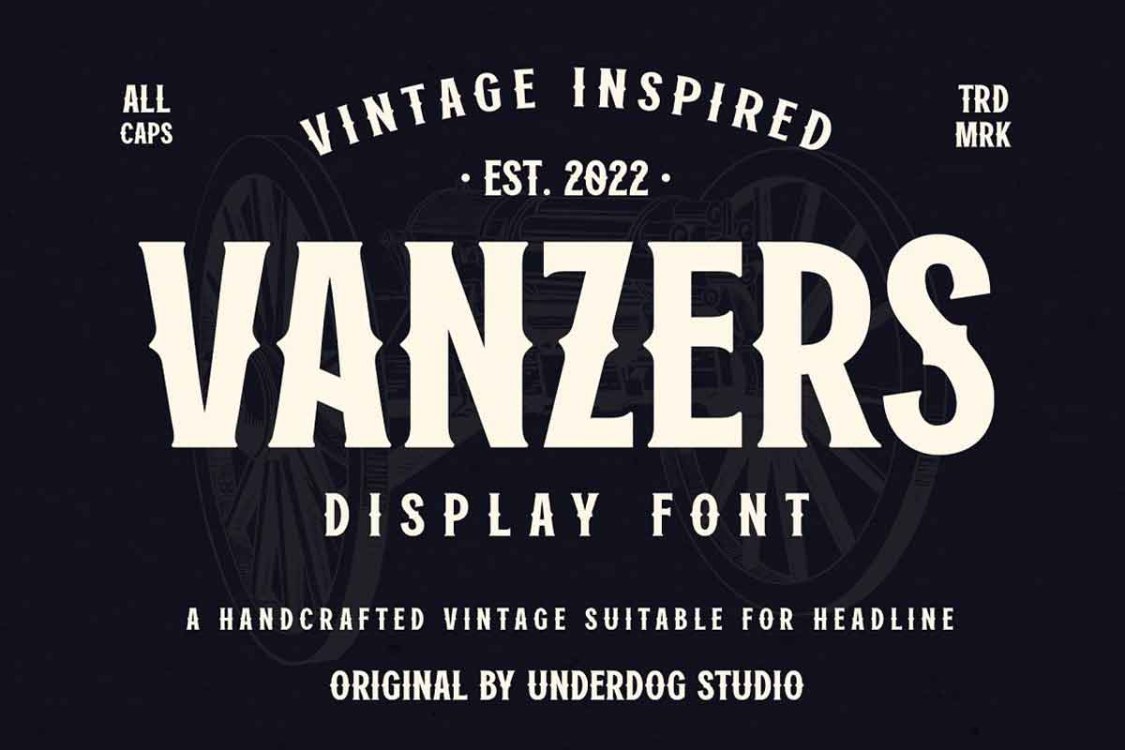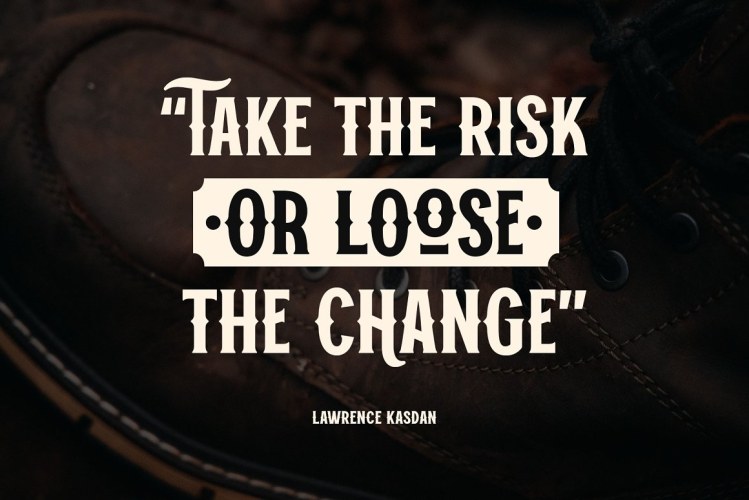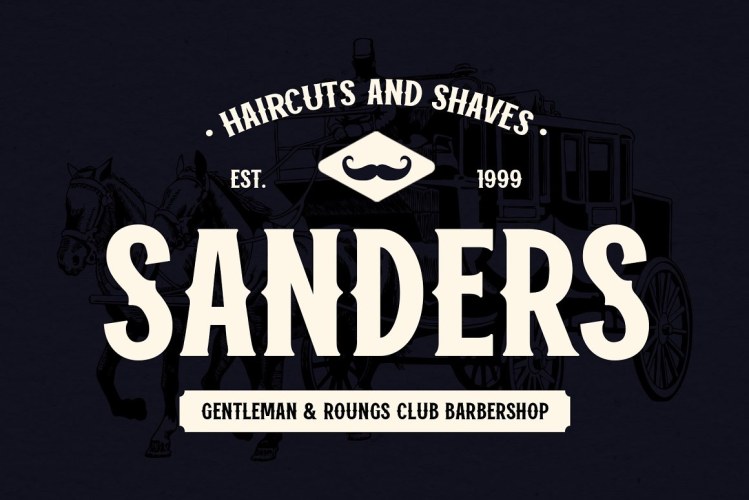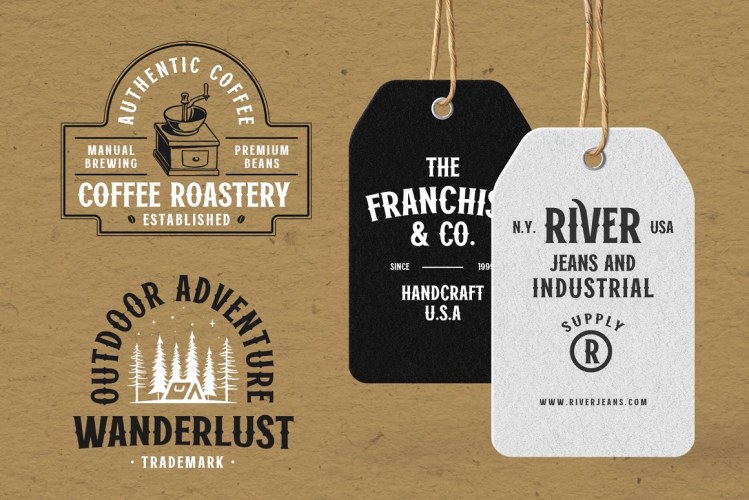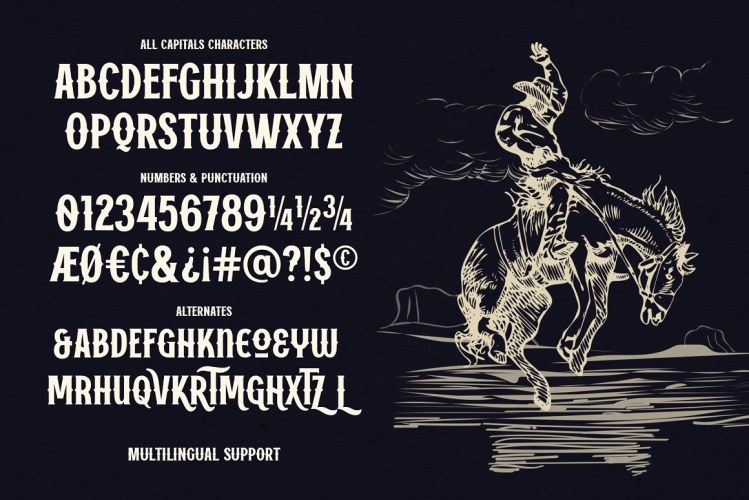
Vanzers Font
Vanzers is a vintage font. The display font inspired by the vintage designs and western typography. Vanzers is strong serif font with spurs added in the middle of letters to give a confident and manly looks.
Vanzers is suitable for headline, label, logos, storefront, branding, billboard and more. Included with special characters. and multilingual support.
Vanzers Font is a Display Fonts font that brings a professional and versatile look to your projects. Vanzers is a vintage font .